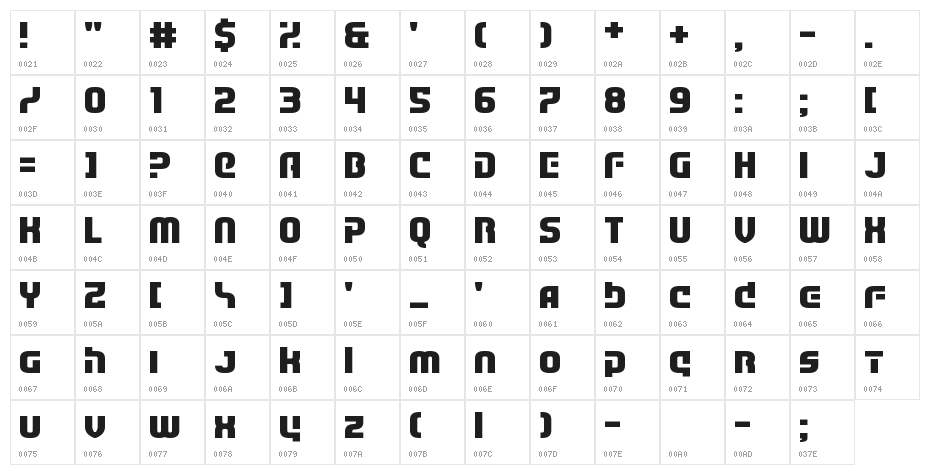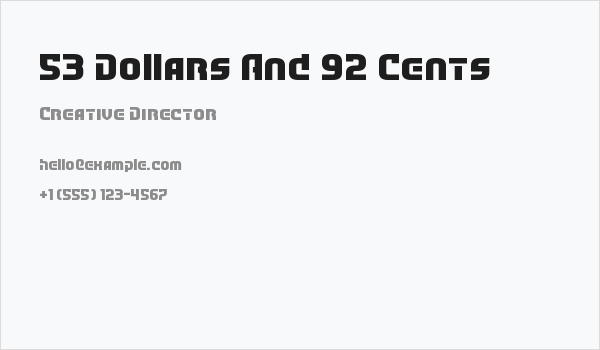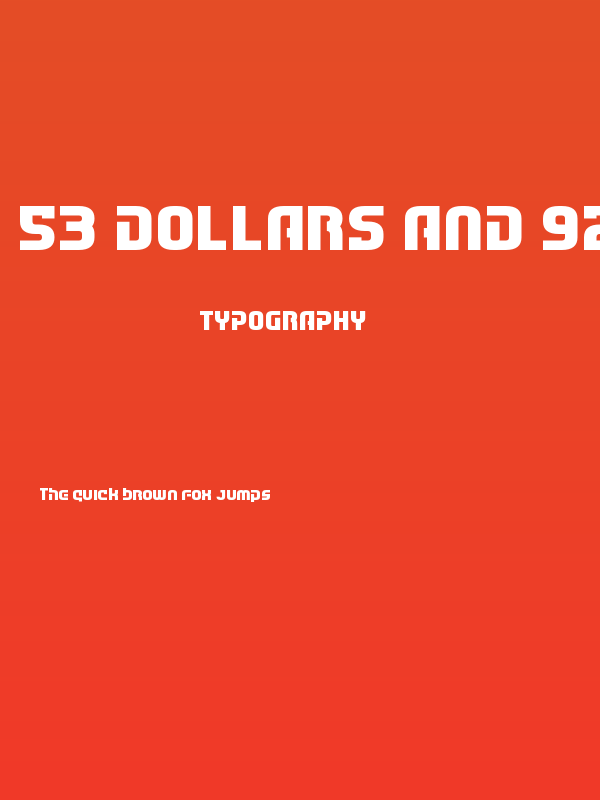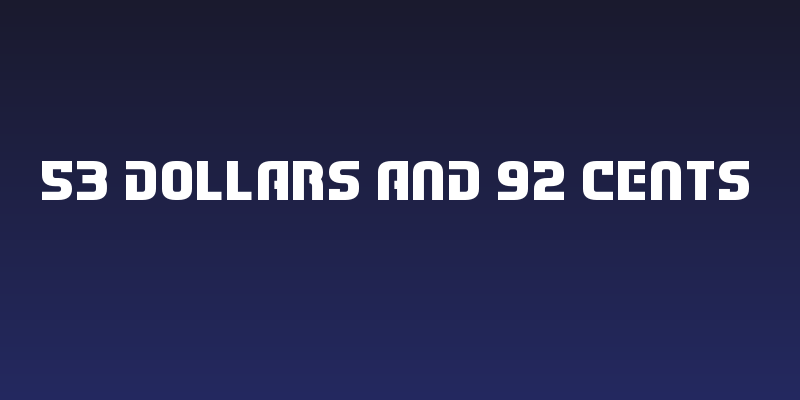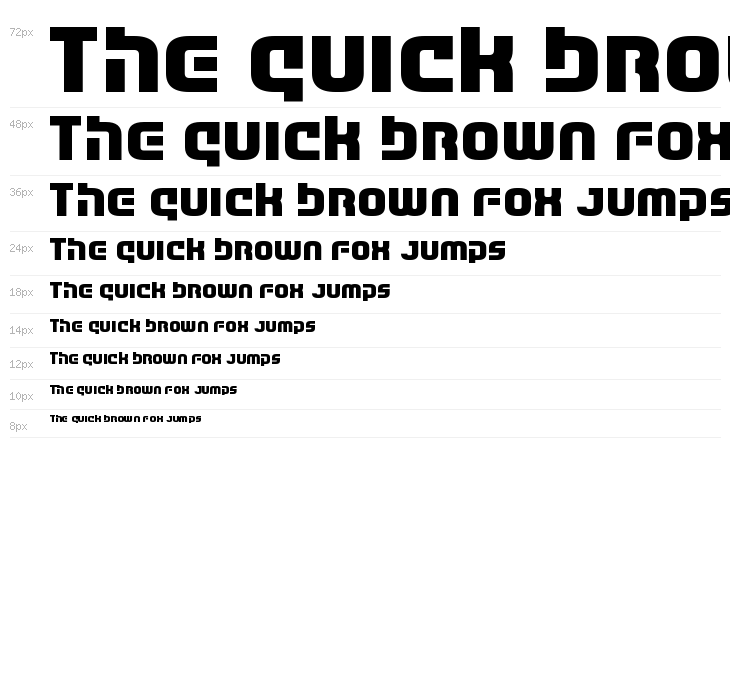
53 Dollars And 92 Cents Font
53 Dollars And 92 Cents Description
This font exhibits a bold and robust design with a modern flair. The characters are uniformly thick, giving a strong and impactful appearance. The uppercase and lowercase letters maintain a consistent style, with rounded edges that soften the overall look. The numerals are clear and easily distinguishable, matching the boldness of the alphabetic characters. Special characters are designed with the same attention to detail, ensuring they integrate seamlessly with the rest of the font. This font's strong presence makes it suitable for attention-grabbing designs.
| Proposed Projects | Ideal for branding, headlines, posters, and advertisements where a bold statement is needed. |